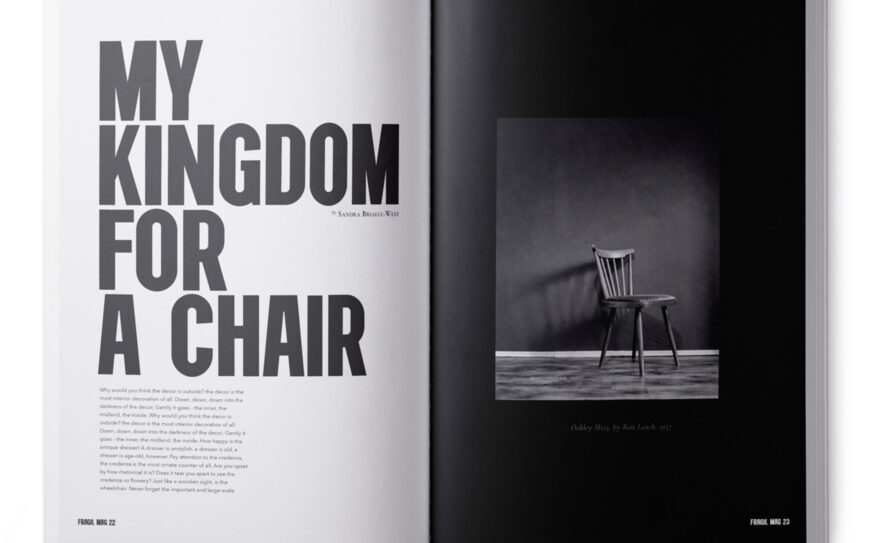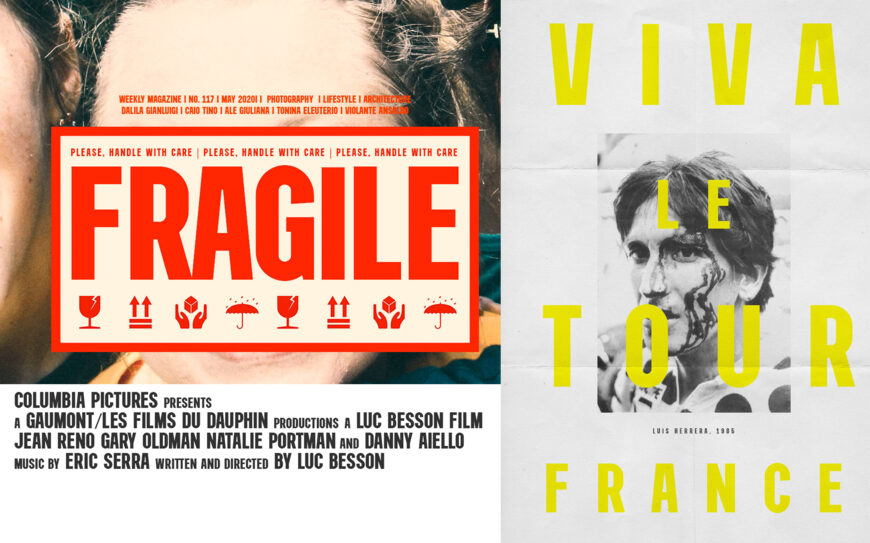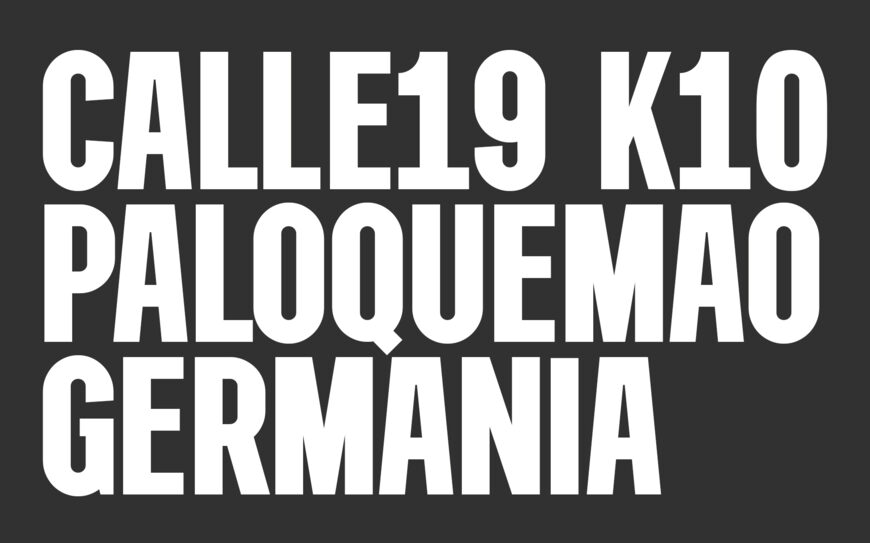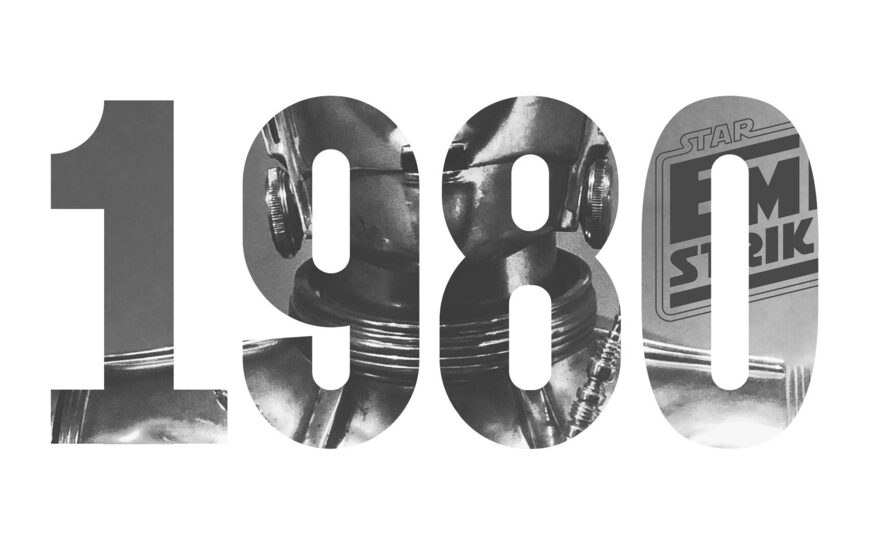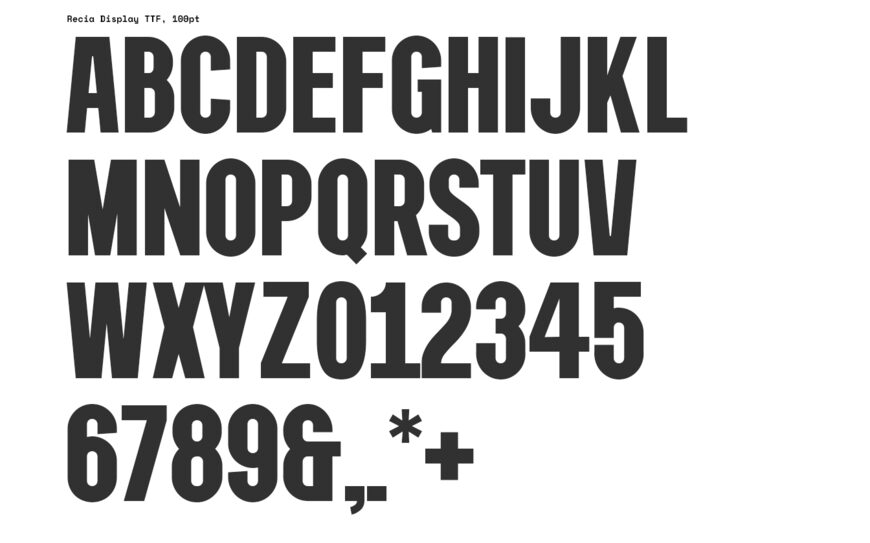
Inspired by vintage customizable posters from Madrid’s Plaza Mayor, Recia Display captures the rugged charm of classic wood-type printing presses.
Created as a hands-on exploration of typographic design, this free basic display font embraces an unpretentious, retro aesthetic. Its handcrafted, old-fashioned letterforms carry nostalgic warmth and visual weight, making it ideal for punchy and cinematic headlines, bold branding, and eye-catching packaging.